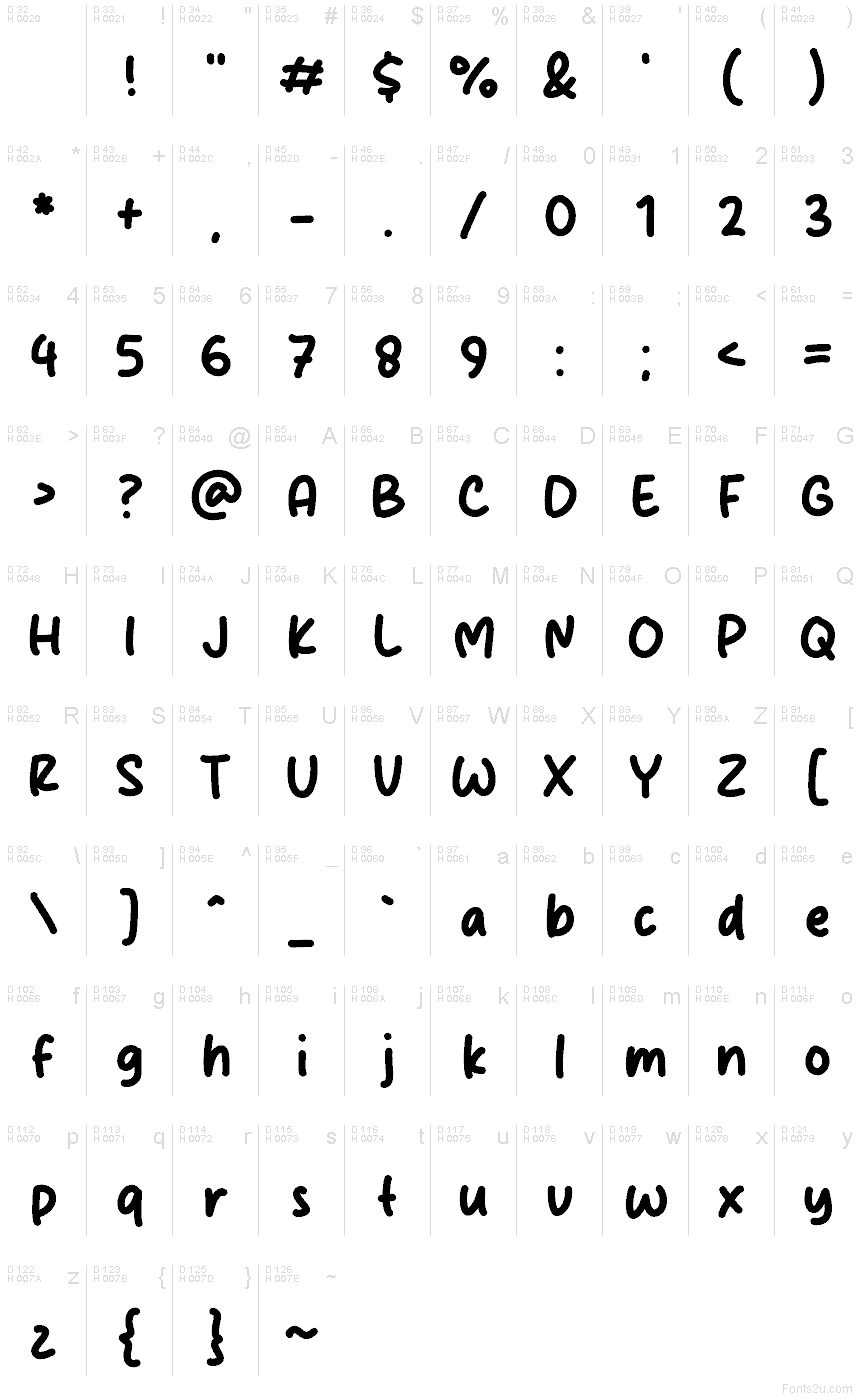
Daily Memo
Daily Memo font by MJType is a free handwritten font with a lighthearted design and a friendly spirit. Its casual rounded edges lend it its relaxed vibe which instantly puts both writers and viewers at ease. Stylish letters, standing out on their own, compose this modern typeface whose charm can only be surpassed by how much fun it is to use.
Enjoy every step of your creative project with Daily Memo and feature its dashing letters in notebooks, greeting/holiday cards, comics or children’s books covers and pages. It’s easy to love the final results of menus, postcards, branding designs or stationery items when this charming font is in use!